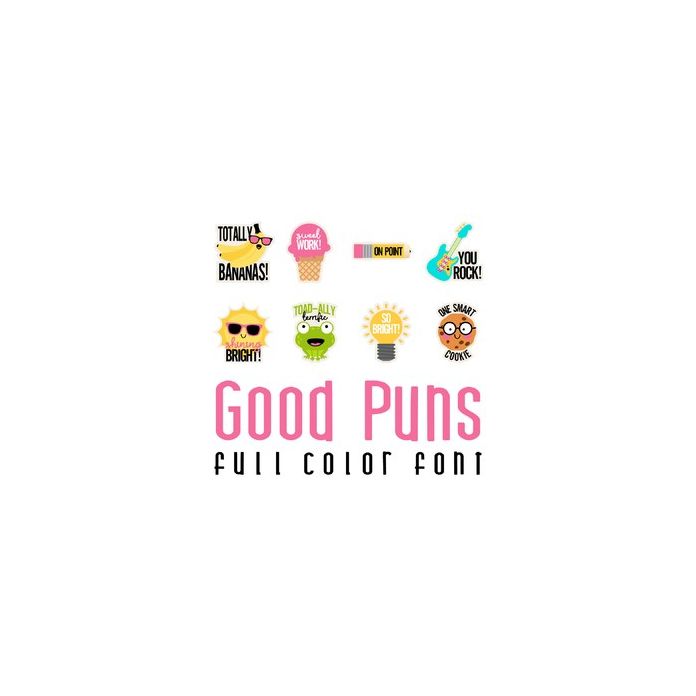
This adorable full color doodlebat font features 26 adorable imagery and puns. Perfect for teachers, school, thank yous, cards, crafts, gifts, decor, scrap book pages, planner stickers and more!